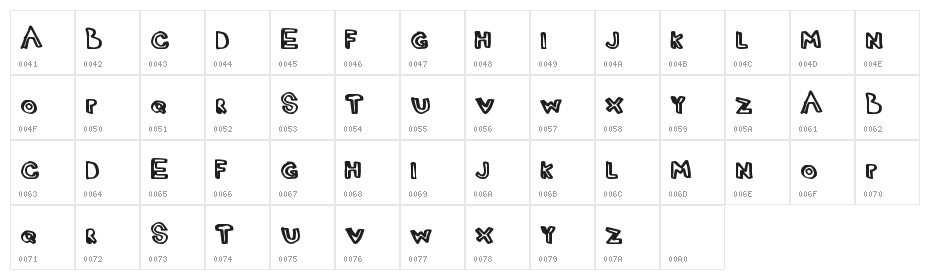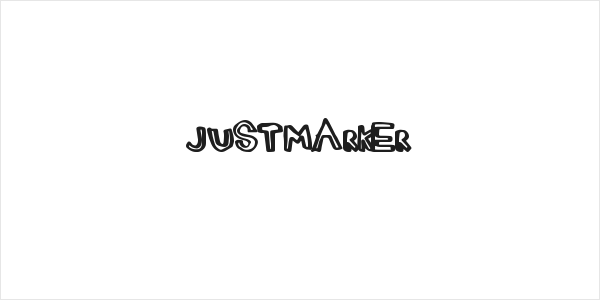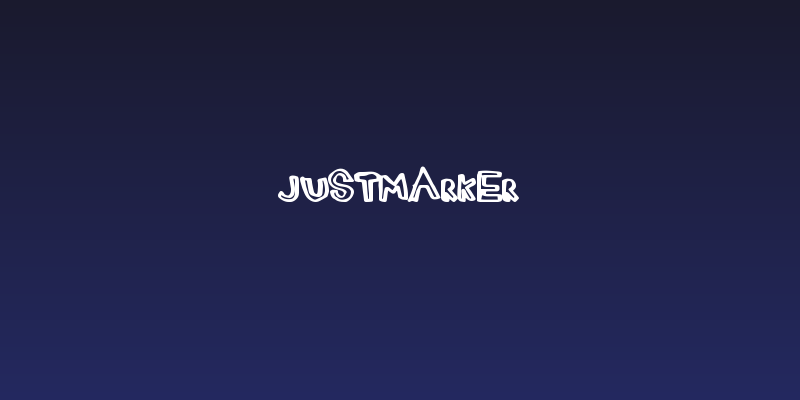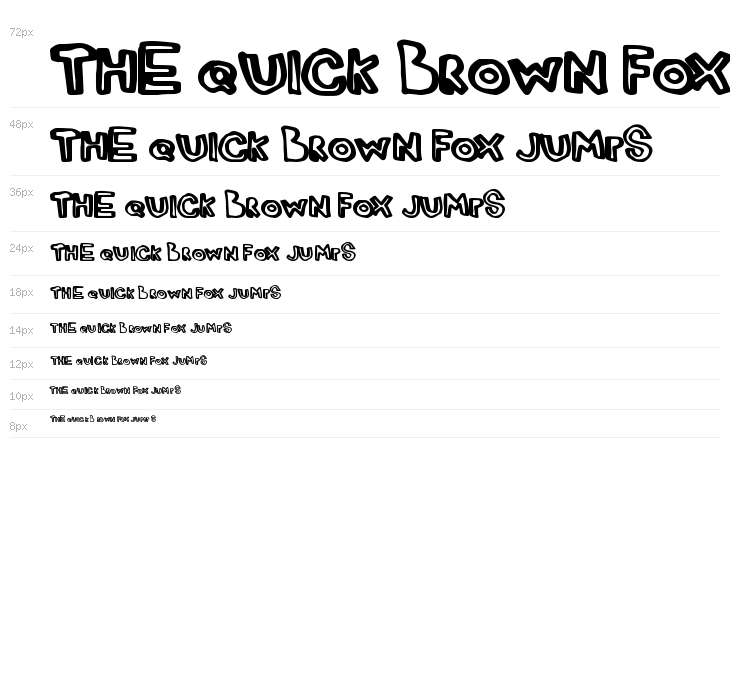
JustMarker Font
JustMarker Description
This playful and bold font features a hand-drawn, marker-like style that exudes a casual and fun vibe. The characters are thick and rounded, with a slightly uneven baseline that adds to its informal charm. The uppercase and lowercase letters maintain a consistent style, with exaggerated curves and a whimsical appearance. The font's unique personality makes it stand out, with each letter having a distinct, artistic flair. The spacing between characters is relatively tight, enhancing its compact and cohesive look. This font is perfect for projects that require a touch of creativity and informality.
| Proposed Projects | Ideal for children's books, playful branding, casual invitations, and creative posters. |